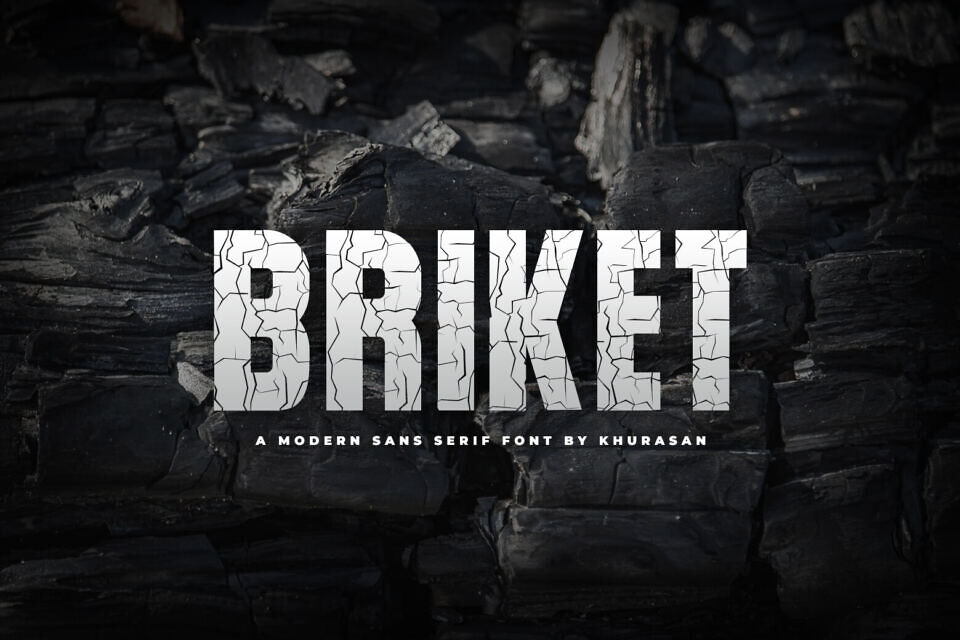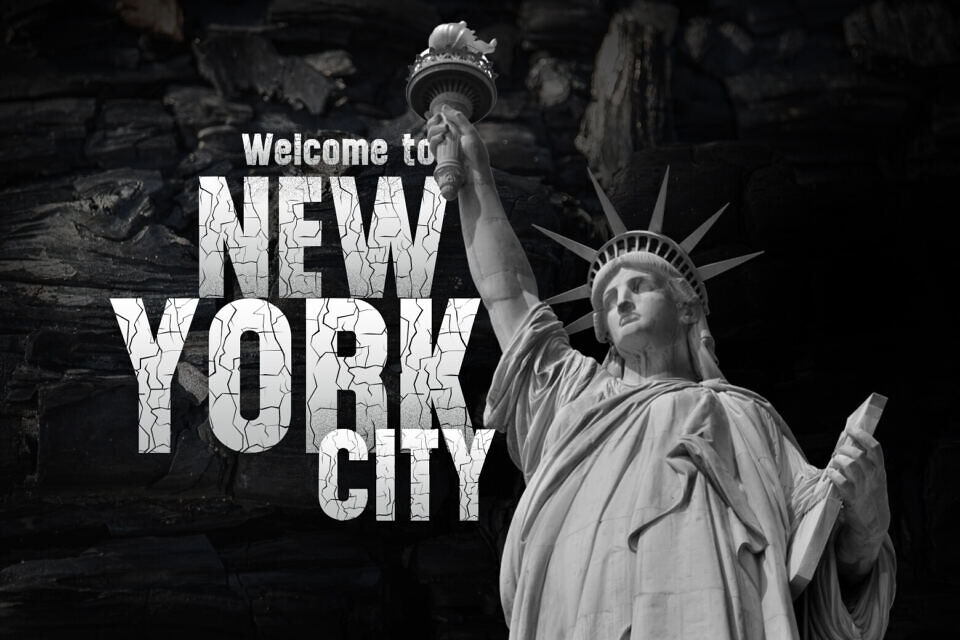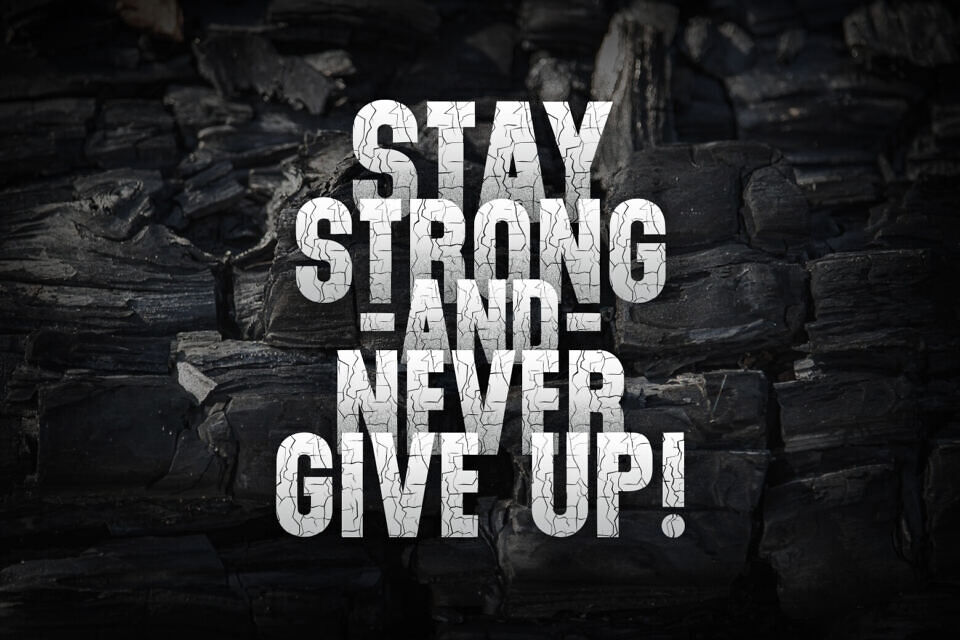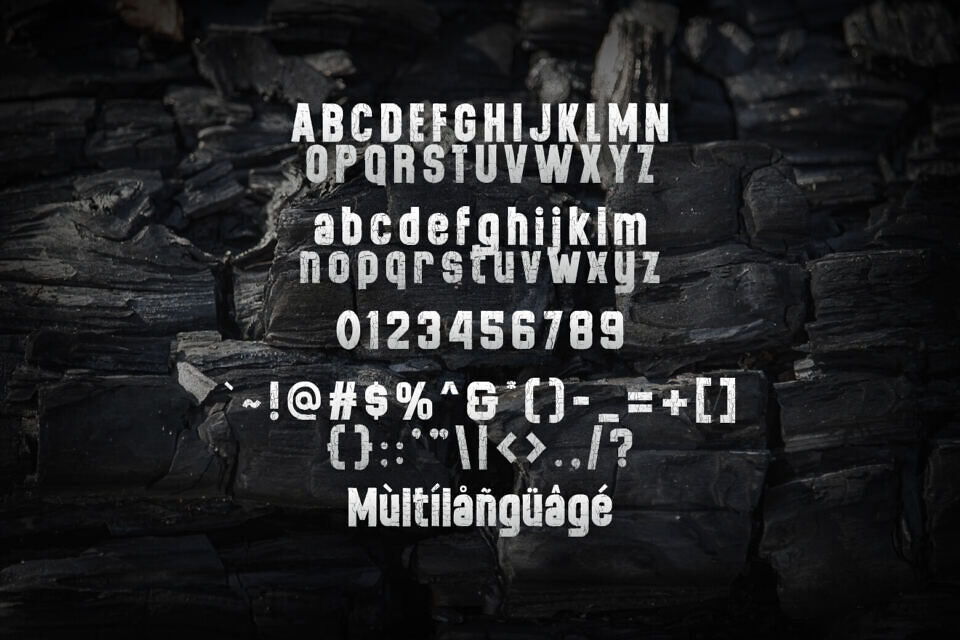
Briket is a modern and unique sans display font with a cracked font style. It’s perfect for posters, logos, magazines, book covers, banners, and more! Get this unique display font and use it to create beautiful designs!
This font can easily be combined with a wide variety of projects, so add it to your creative ideas and see how it makes them stand out!